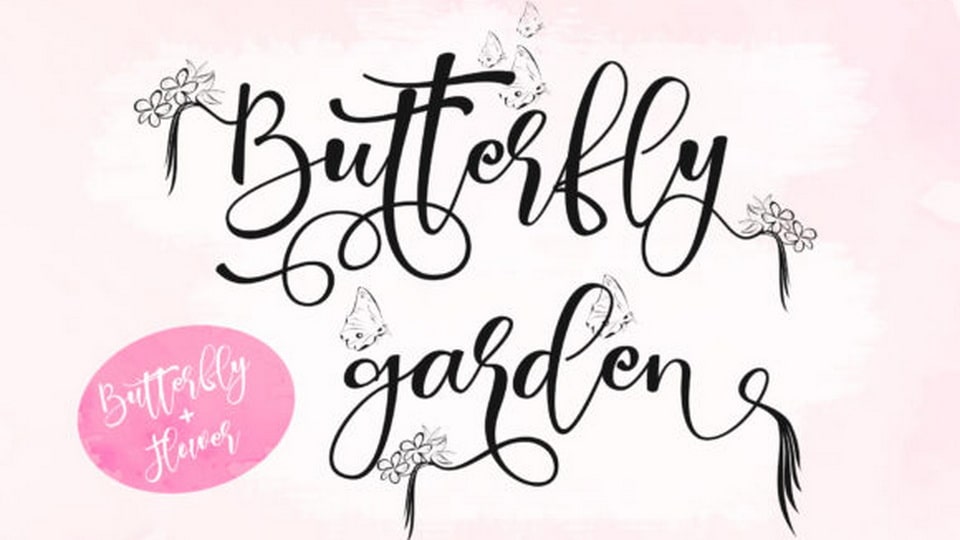
Download Butterfly Garden font, a unique calligraphic typeface with a modern shape and a very natural style. Butterfly Garden font has the potential to take any of your creative ideas to the highest level.